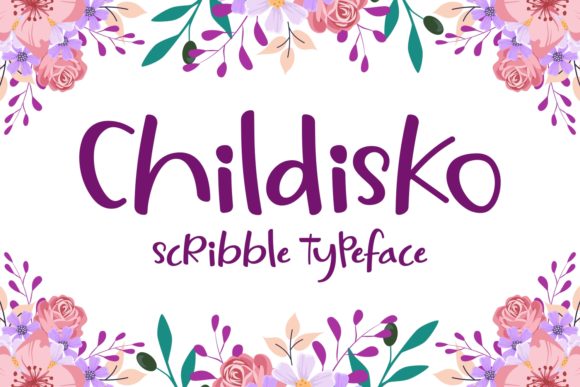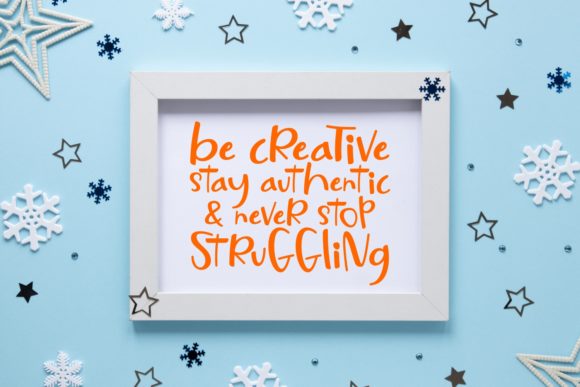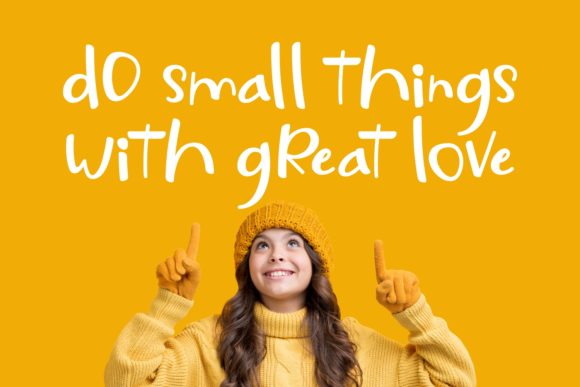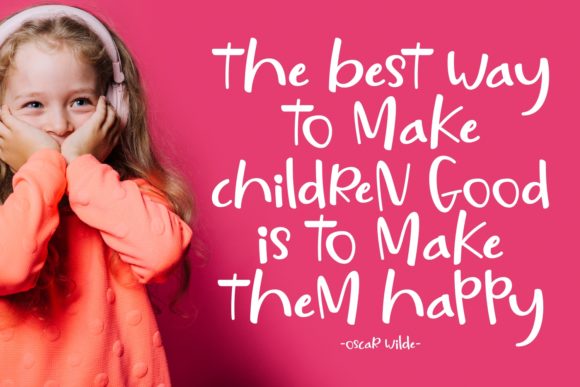
Childisko Font
About Childisko Font
Childisko is a truly iconic script that resembles a kid’s handwriting. Fall in love with its playful and innocent style.